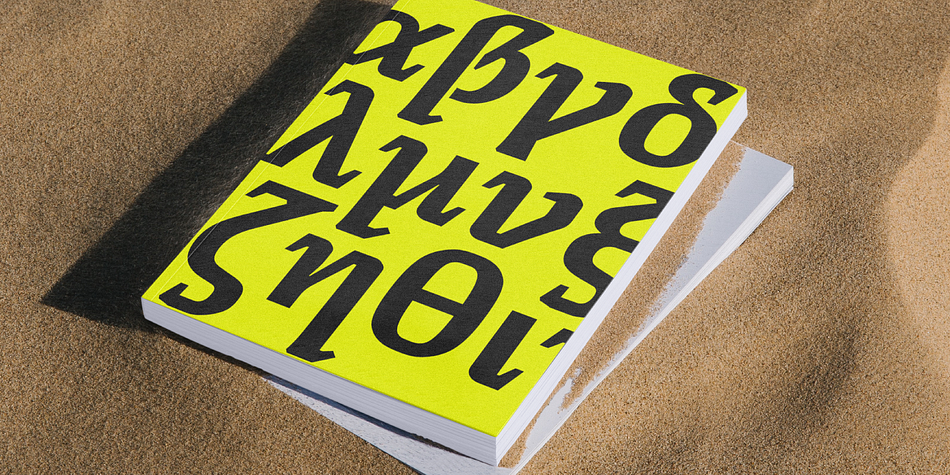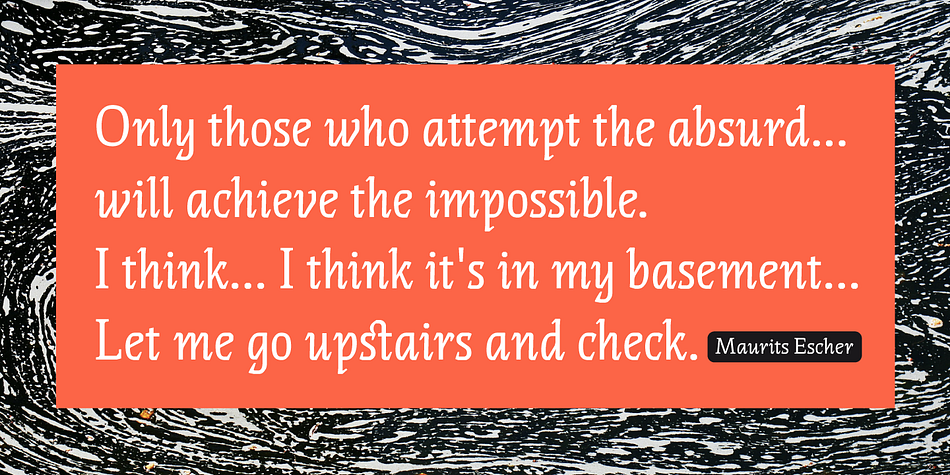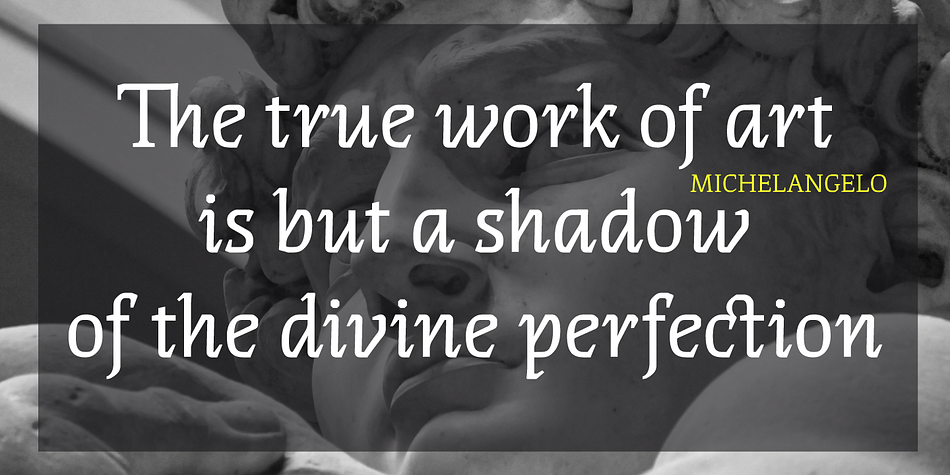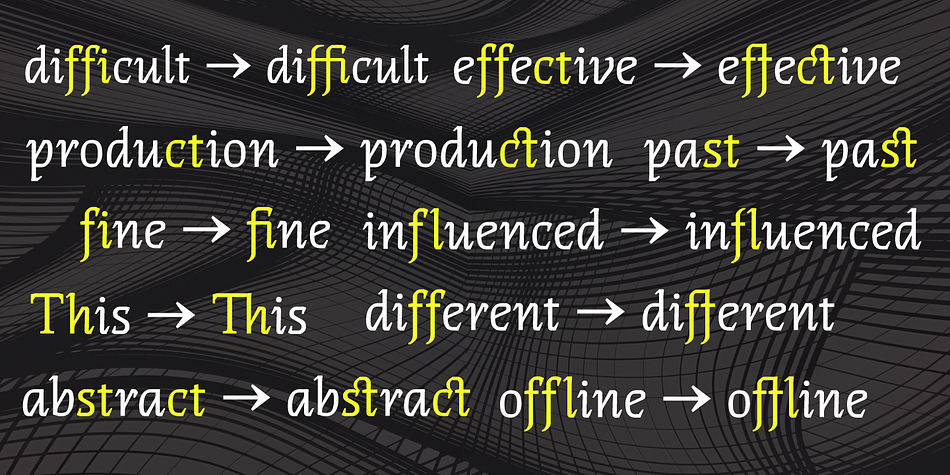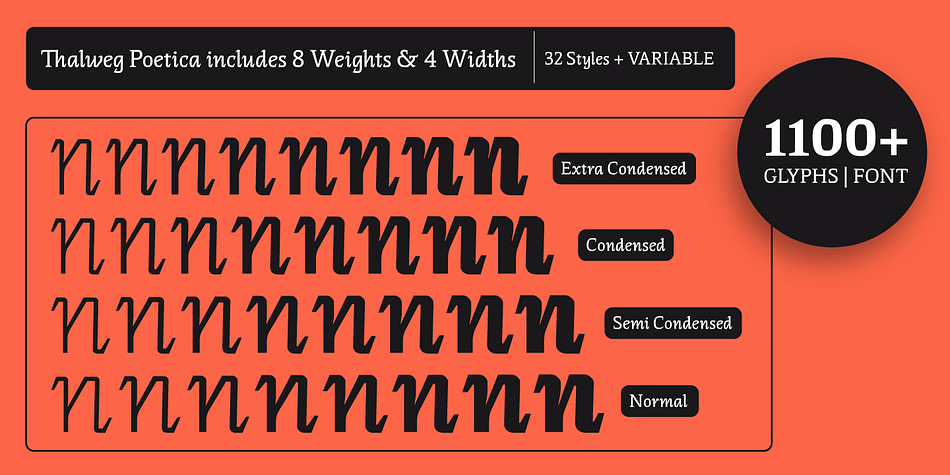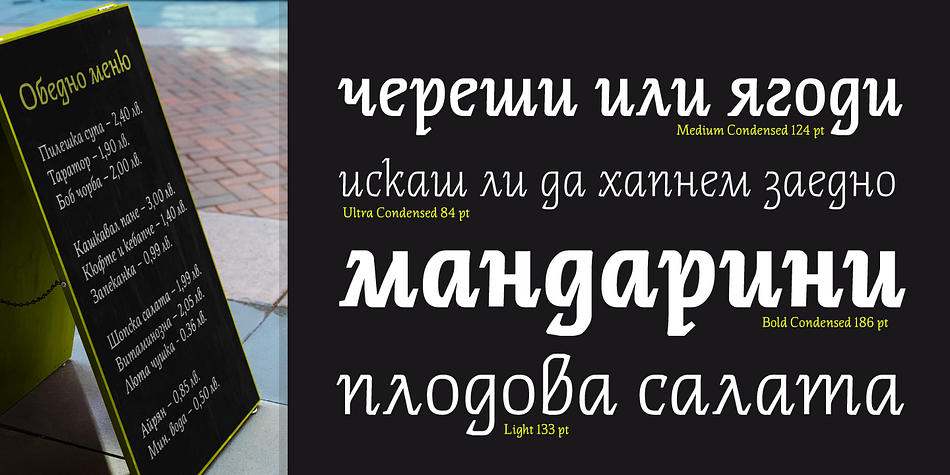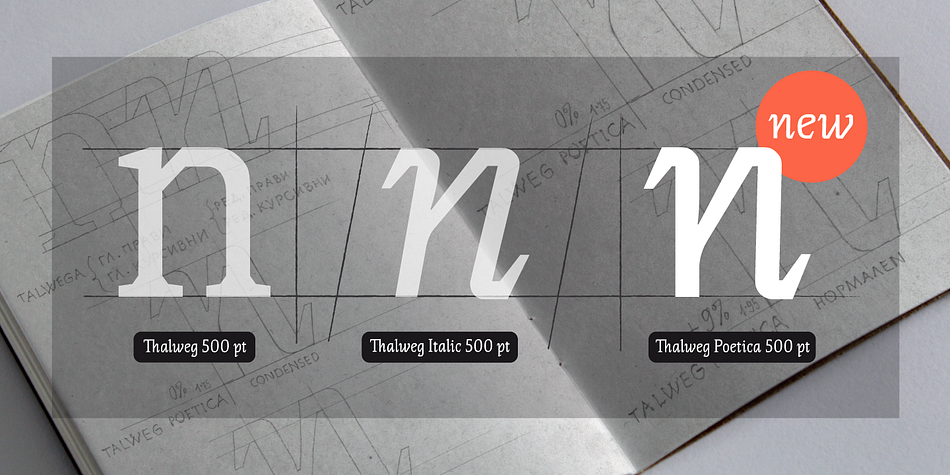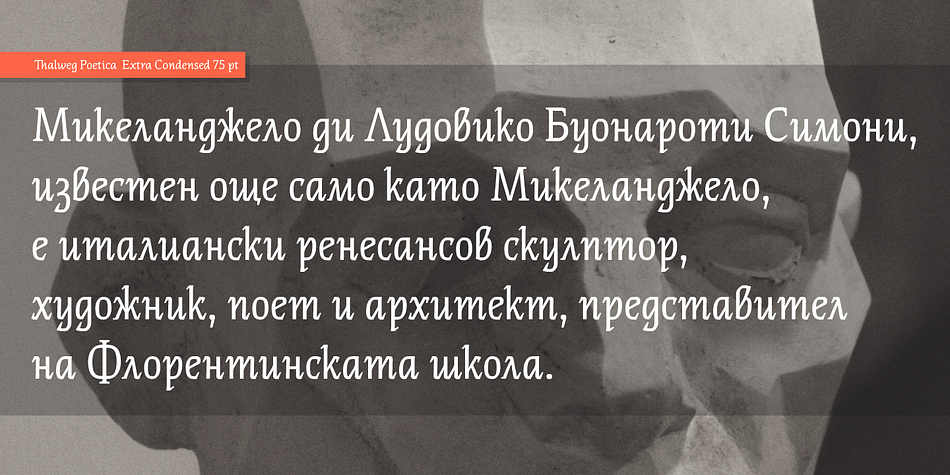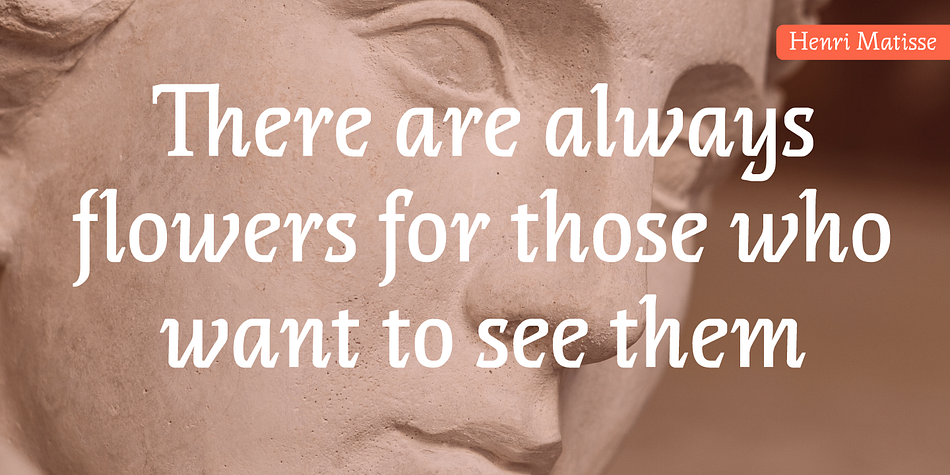
Designed by Ani Dimitrova and Ivan Kyosev, Thalweg Poetica is a display serif font family. This typeface has thirty-three styles and was published by Ani Dimitrova.
Thalweg Poetica is a revival font that comes with a story created in 1993 by the Bulgarian artist Ivan Kyosev. It is a sequel to the Thalweg font family completed in 2020. The construction of characters combines the upright character of the Thalweg font and the handwritten character of Thalweg Italic. The font partners perfectly with the Thalweg font family and gives designers a new opportunity for expression.
Thalweg Poetica contains 4 widths / Normal, Semi Condensed, Condensed & Extra Condensed / and 8 weights ranging from Thin to Black with small caps versions, each style containing more than 1100 glyphs. The font comes with extended coverage of the Latin, Cyrillic, and Greek Scripts. All of the weights are specifically equipped for complex, professional typography with Open Type Features. These features include Small Caps, Ligatures, Discretionary Ligatures, Superscript, Subscript, Tabular Figures, Old-Style Figures, Circled Figures, Arrows, Matching currency symbols, and fraction. The Thalweg Poetica family is ideally suited for small text, books and magazines, branding, posters, as well as web and screen design, headlines, and more. The Regular and Medium weights are perfect for body text and they give an interesting texture to the text. The range of styles gives good flexibility to this family.
Designers | Ani Dimitrova, Ivan Kyosev |